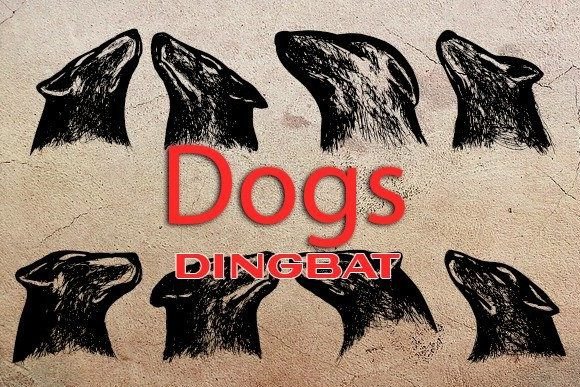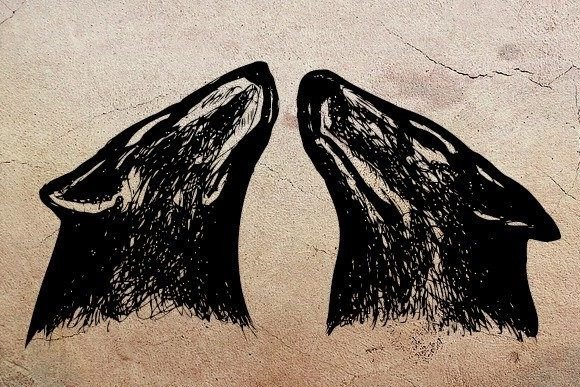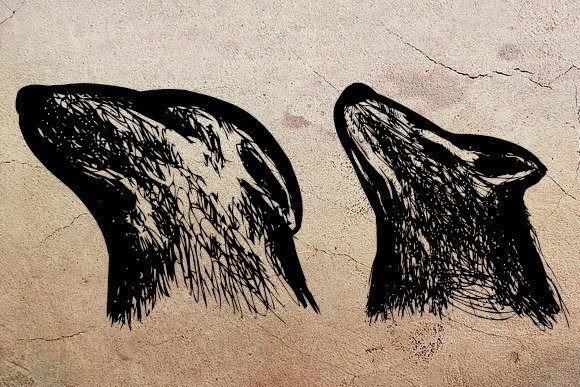
Dogs Font
ABOUT DOGS FONT
“Dogs” is a delightful dingbat font that features a charming collection of dog-related icons and illustrations. With its playful and lovable designs, this font adds a touch of canine cuteness to any design project.
The “Dogs” dingbat font offers a wide range of dog-themed icons, including different breeds, paw prints, bones, doghouses, and more. These adorable illustrations can be used to enhance various design materials such as postcards, flyers, posters, and more.
Whether you’re promoting a pet-related event, creating a dog-themed invitation, or simply want to add a touch of doggy charm to your designs, “Dogs” is the perfect choice. The dingbat font allows you to easily insert these delightful dog icons into your projects, instantly infusing them with a sense of fun and playfulness.
The versatility of “Dogs” allows you to use it in various design contexts. It can be applied to both personal and commercial projects, whether you’re designing for animal shelters, veterinary clinics, pet-themed businesses, or simply expressing your love for dogs through your creative endeavors.
By incorporating the “Dogs” dingbat font into your designs, you can create visually appealing and memorable pieces that capture the hearts of dog lovers and enthusiasts. The charming dog-related icons provide a whimsical element that adds personality and warmth to your creations.